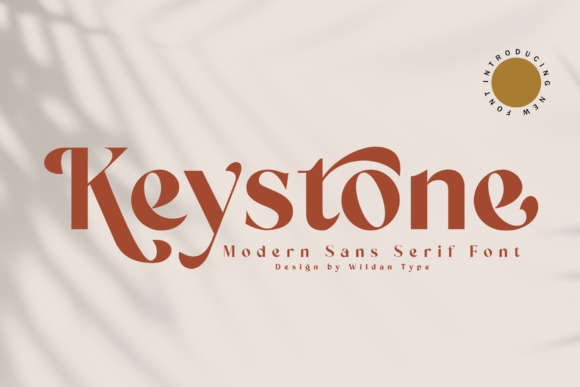
When it comes to creating captivating designs, the keystone lies in the perfect font choice. Discover Keystone Font, a modern and simple serif font that will elevate your designs to new heights. Its timeless elegance is crafted to add a touch of sophistication to every project, ensuring your messages stand out with an air of authority and grace.
Unleash your creativity and explore the endless possibilities that Keystone Font presents. Its clean lines and graceful curves render it the ideal choice for a wide range of applications, from classy logo signs and editorial designs to captivating fashion branding and packaging projects. Whether you're designing a magazine cover, crafting a captivating advertisement, or creating a unique T-shirt design, Keystone Font will infuse your creations with an unforgettable charm.
Dive into the world of typography and let Keystone Font guide you. Imagine your designs adorned with its striking letterforms, each stroke meticulously crafted to exude elegance and sophistication. Keystone Font's versatility knows no bounds, allowing you to effortlessly conquer the digital and physical realms. From web designs that captivate audiences to print projects that leave a lasting impression, Keystone Font will make your creations shine.
With Keystone Font, you're not just downloading a font; you're embarking on a journey of artistic expression. Let its captivating glyphs and swashes ignite your creativity, empowering you to craft designs that resonate with your audience. Keystone Font is more than just a tool; it's an extension of your artistic vision, a gateway to a world where your designs come alive with timeless elegance and modern flair.